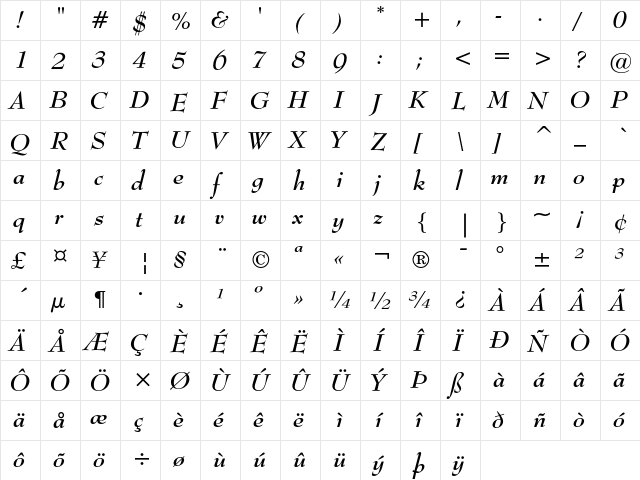
Bernhard Modern Bold Italic Font Preview
Design Context for Bernhard Modern Typeface
Bernhard Modern takes a measured approach to typography — its balanced proportions and neutral character make it a reliable workhorse for both digital and print work. Its italic angle brings a sense of urgency and motion to the letterforms. Its bold stroke weight gives it real presence on the page.
Pro Tip: Try Bernhard Modern for annotation and caption copy alongside an upright companion — the contrast in angle creates a dynamic but ordered typographic system.